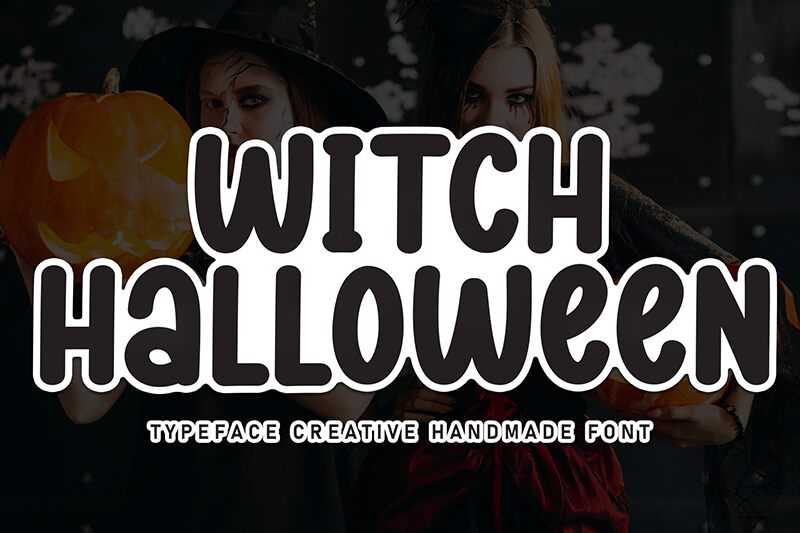
Witch Halloween
Witch Halloween font by Scratchones is a condensed handwritten typeface that blends quirky and friendly elements with a retro-inspired twist. Featuring rounded edges and casual strokes, it captures an inviting feel perfect for eye-catching designs. Transform every written word into an art piece that will immediately engage onlookers.